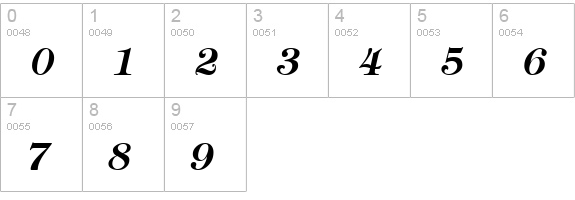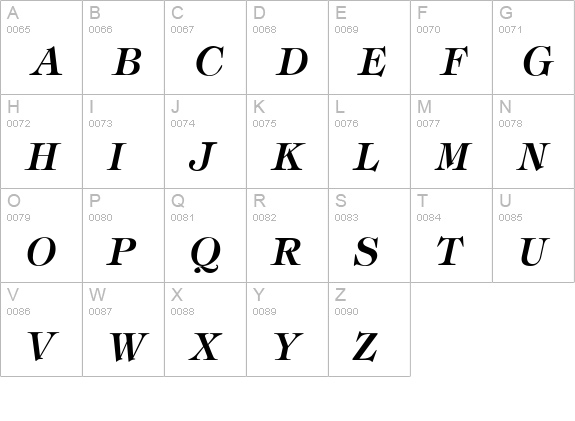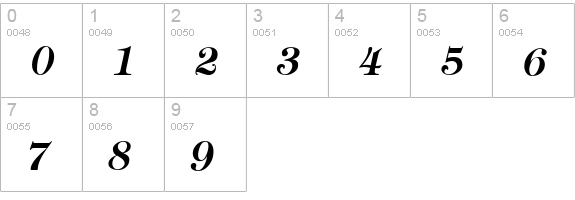
Timbrel Bold Italic Font Details
Timbrel Bold Italic is a strong, high-contrast, italic variant in the Timbrel typeface family \xE2\x80\x94 well suited to headlines, attention-grabbing titles, and strong calls-to-action.
Timbrel Bold Italic font is a stunning display of elegance and confidence. Its bold and italicized design adds a touch of sophistication to any project, making it perfect for headlines, logos, and branding materials. The carefully crafted letterforms exude a sense of strength and power, while maintaining a graceful and modern appearance. With its unique combination of boldness and italics, Timbrel Bold Italic font stands out from the crowd, commanding attention and leaving a lasting impression. It effortlessly blends a sense of tradition with a contemporary flair, making it suitable for a wide range of applications. Not only does Timbrel Bold Italic font possess an exceptional aesthetic appeal, but it is also incredibly versatile. It seamlessly adapts to various design styles and can be used in both digital and print mediums. From websites and advertisements to packaging and invitations, this font guarantees to elevate the visual impact of any project. One of the best parts about Timbrel Bold Italic font is that it is freely available to download at FontsMarket.com. This means that designers and creatives can easily access this exceptional font without any restrictions or costs. Whether you are a professional designer or a hobbyist, Timbrel Bold Italic font provides you with the opportunity to enhance your creations with a high-quality typeface, completely free of charge. So, if you're looking to add a touch of boldness and elegance to your designs, look no further than Timbrel Bold Italic font. Its striking presence, versatility, and free availability make it a must-have for any design project. Download it today at FontsMarket.com and unlock a world of creative possibilities.